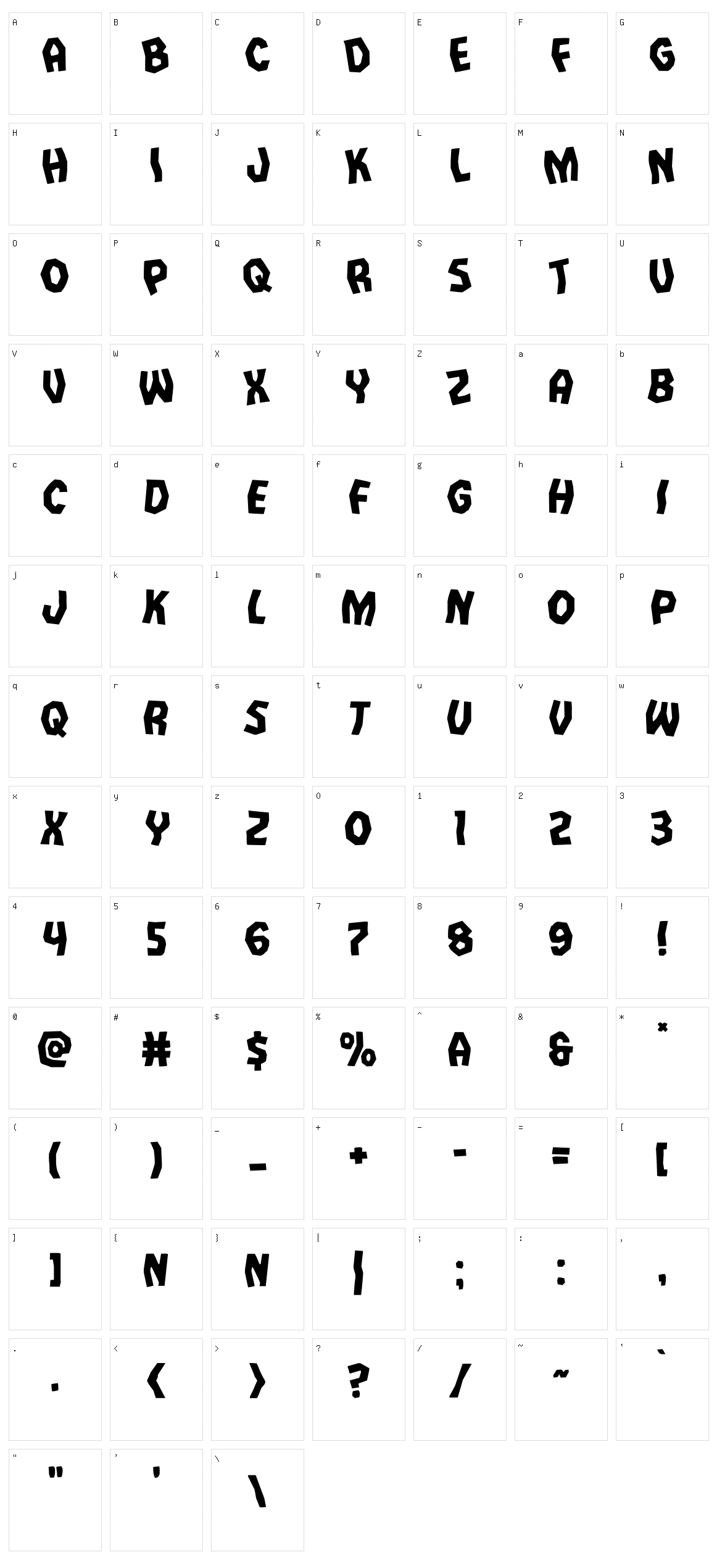
The free font Vampire Bride is carefully designed by Iconian Fonts, showcasing a thoughtful balance of creativity and usability and falls under the Horror font style. When you download the ZIP file, it contains only 3084.13 KB of font files, making it lightweight and quick to download. Please review the license details below to understand permitted usage and distribution rights. If license information is not available, we recommend using this font for personal projects only or contacting the author directly for commercial usage permissions.
This font comes with the following 24 versions: Regular, Italic, Leftalic, Bold, Bold Italic, Condensed, Condensed Italic, Expanded, Expanded Italic, Shadow, Shadow Italic, Rotated, Rotated 2, Staggered, Staggered Italic, Staggered Rotated, Staggered Rotalic, Leaning, Ruined, Ruined Italic, Punch, Engraved and Bevel.